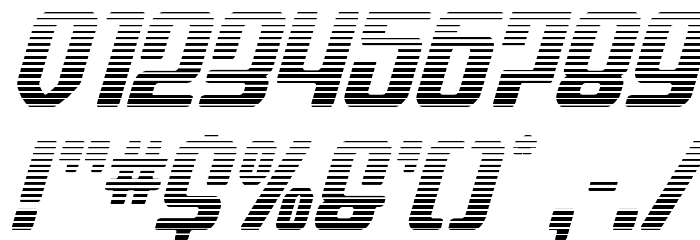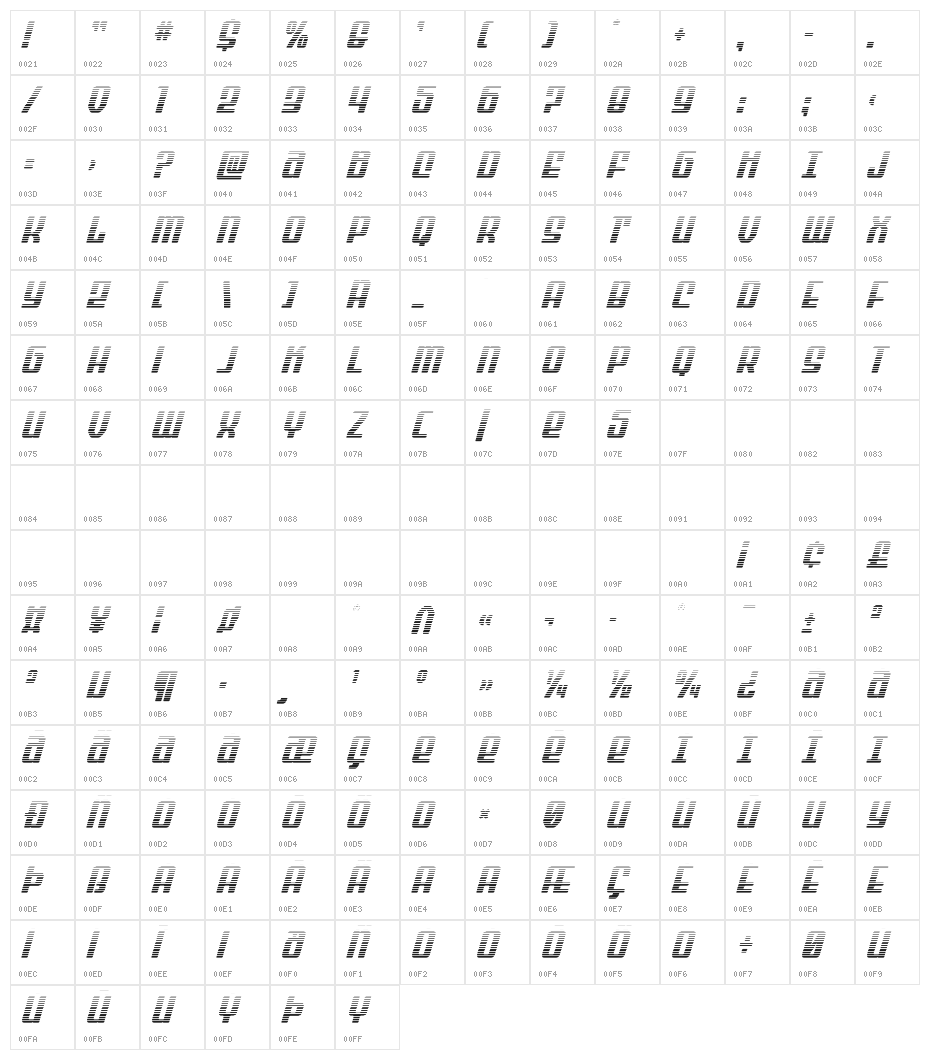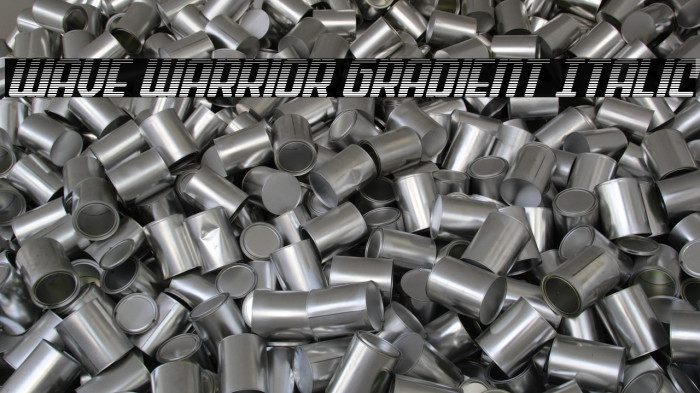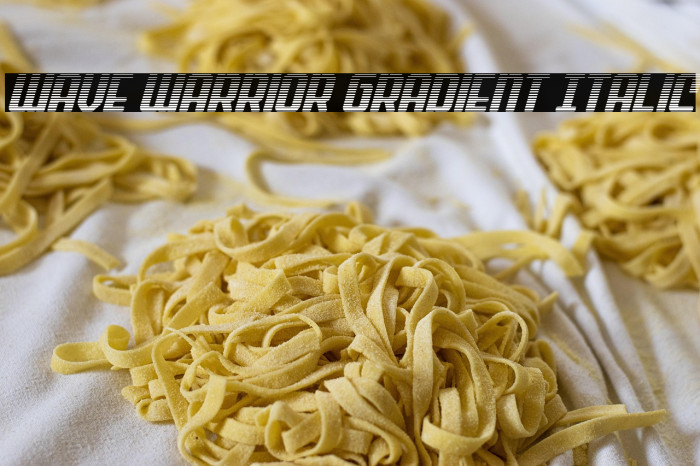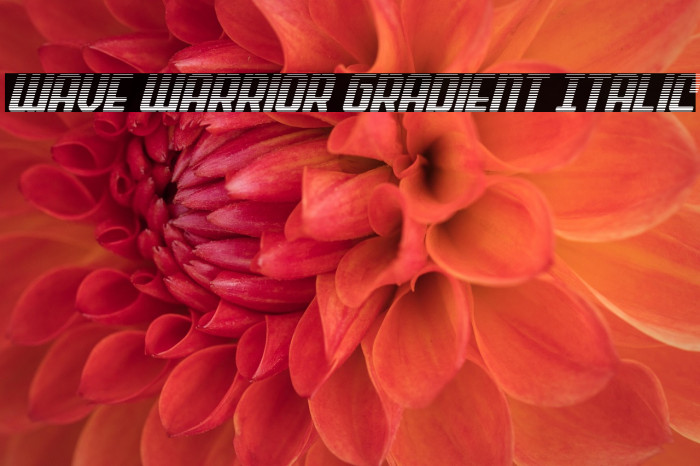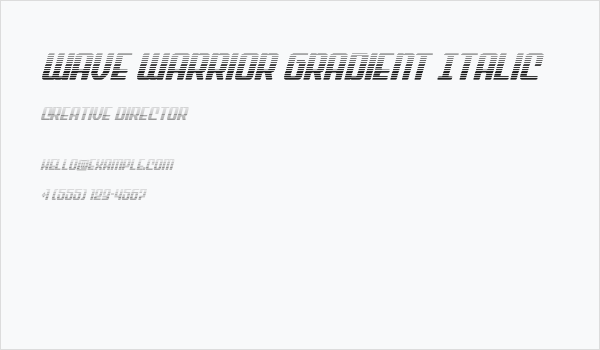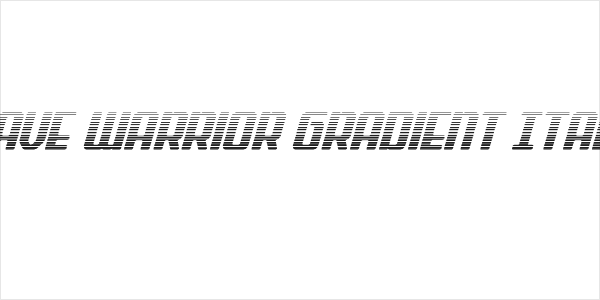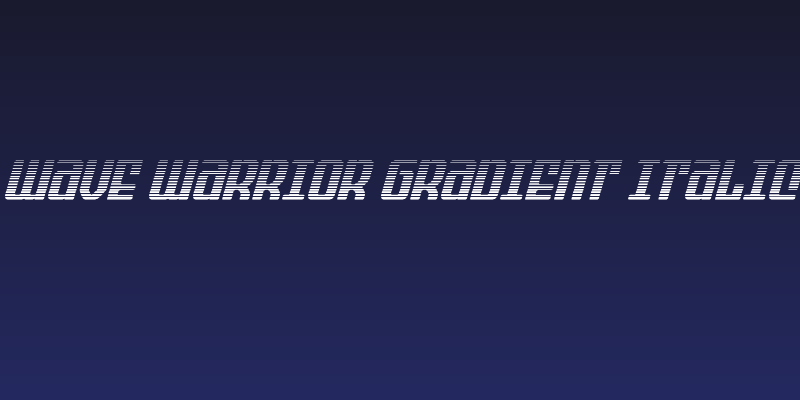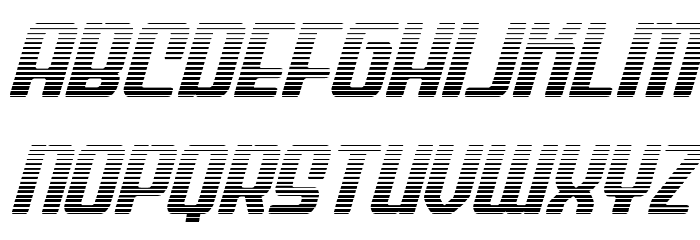
Wave Warrior Gradient Italic Font
Wave Warrior Gradient Italic Description
This font features a dynamic and futuristic design with a distinct italic slant. The characters are composed of horizontal lines that create a gradient effect, giving a sense of motion and speed. The uppercase and lowercase letters maintain a consistent style, with sharp angles and a bold presence. The numerals and special characters follow the same aesthetic, ensuring uniformity across all glyphs. This font's unique design makes it stand out, ideal for projects that require a modern and edgy look.
| Proposed Projects | Ideal for sci-fi themed designs, video game titles, tech branding, and dynamic posters. |